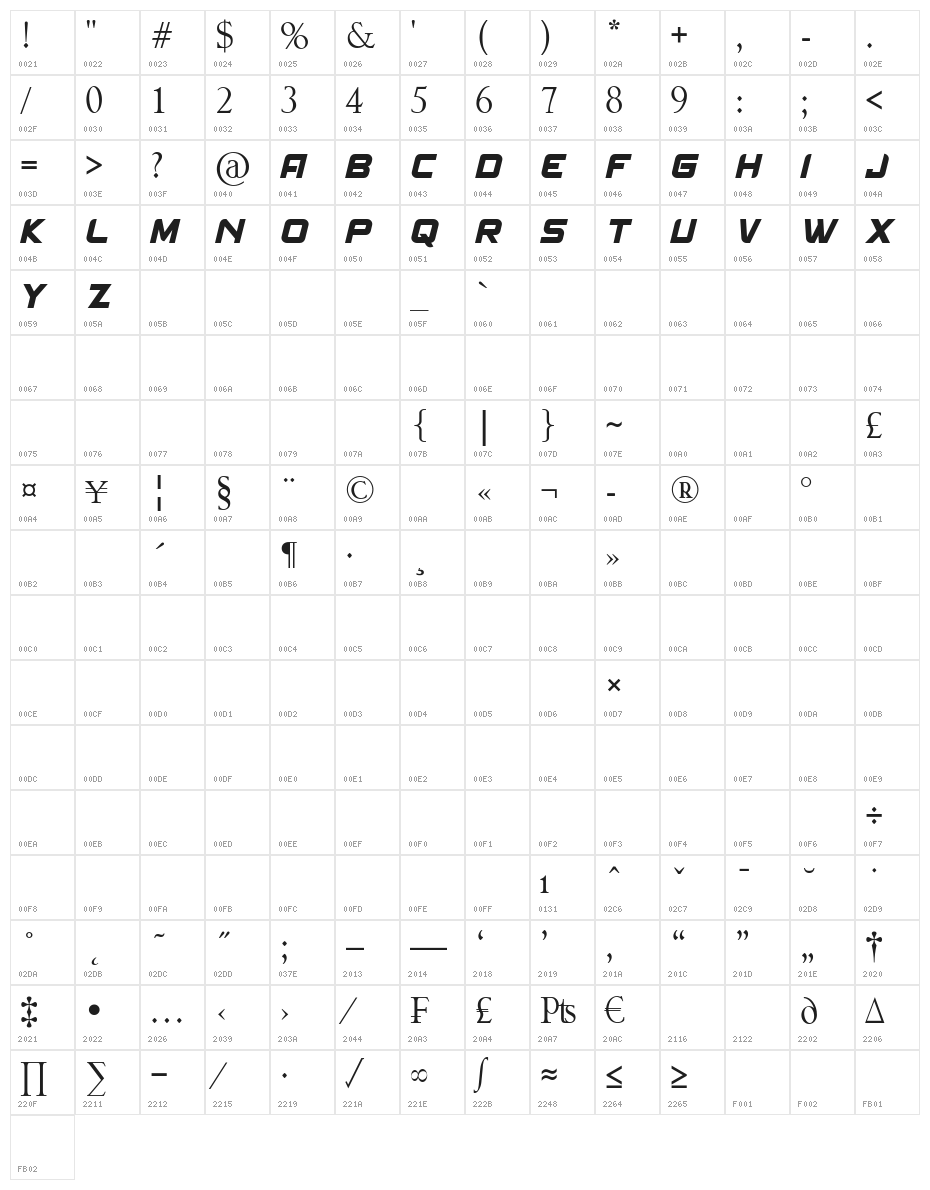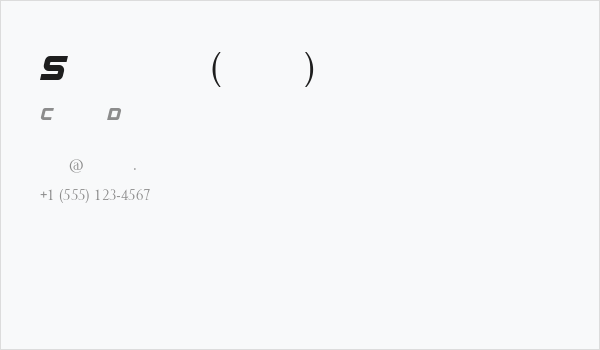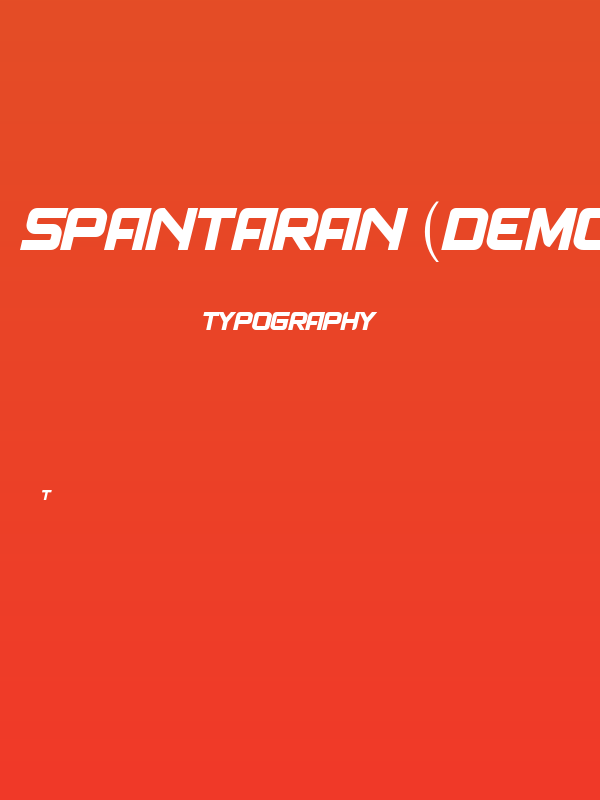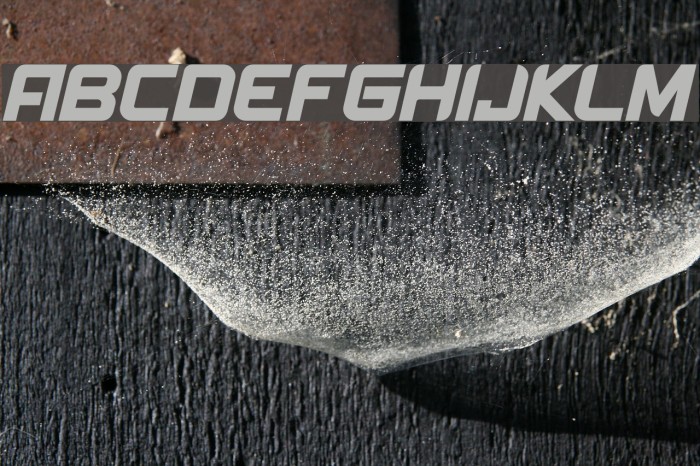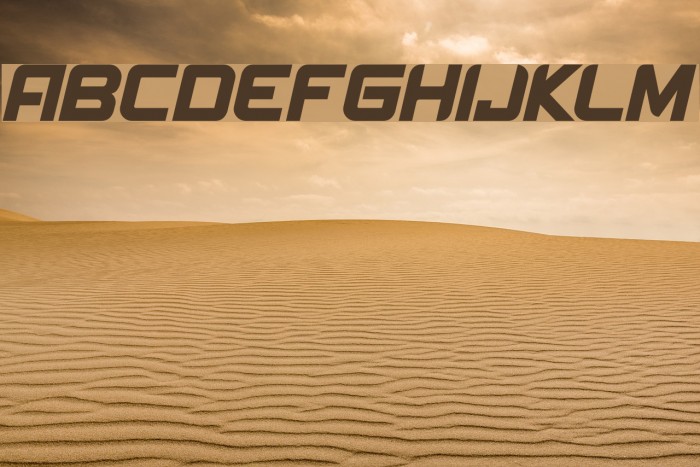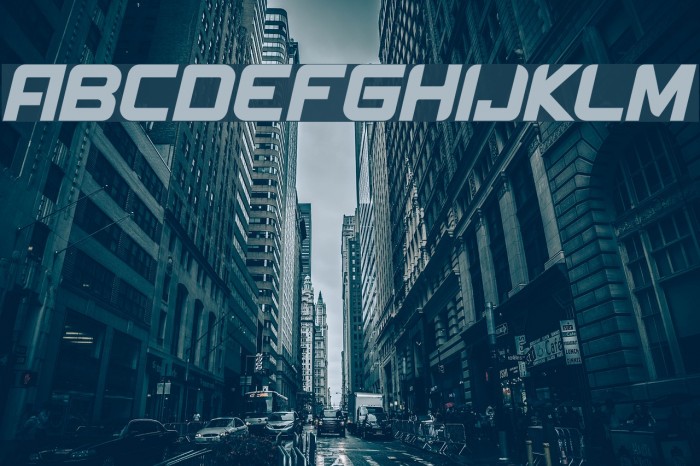
Spantaran (demo) Font
Spantaran (demo) Description
This font features a dynamic and modern design with a strong geometric influence. The uppercase letters are bold and slightly italicized, giving a sense of movement and speed. The lowercase letters maintain a consistent style, complementing the uppercase with a sleek and streamlined appearance. The numerals are clear and well-proportioned, ensuring readability. Special characters are designed with the same attention to detail, making them suitable for various applications. The overall style is contemporary and versatile, ideal for projects that require a modern and energetic look.
| Proposed Projects | Ideal for branding, sports team logos, automotive designs, and modern advertising campaigns. |